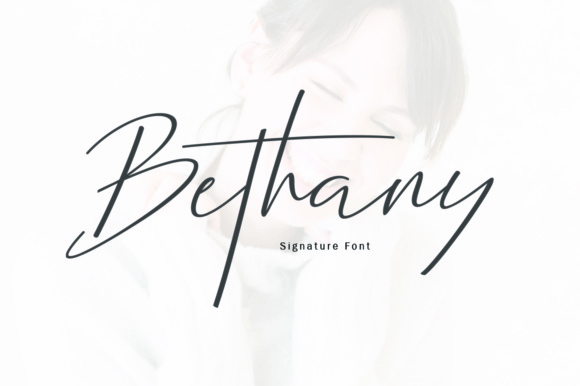
The Bethany Script Font: A Modern Calligraphy Dream
I’ll never forget the design project that led me to discover the Bethany Script Font. I was working on a wedding invitation suite for a client who wanted something elegant, yet modern. I had spent hours browsing through font libraries, but nothing seemed quite right. That was when I stumbled upon the Bethany Script Font, and it was love at first sight! 💕
The Bethany Script Font is a beautiful, modern calligraphy script in a handwriting style. It’s perfect for a wide range of design projects, including branding, wedding invites, magazines, mugs, business cards, quotes, posters, and more!
- 💫 Elegant and modern calligraphy style
- 🎨 Beautiful swashes and ligatures for added flair
- 🌈 Versatile and suitable for a wide range of design projects
- ⚠️ Some users may find the font a bit too ornate for certain projects
- 🤔 Limited availability of certain glyphs and alternates
The Designer Inspiration Behind the Bethany Script Font
The Bethany Script Font was designed with the modern designer in mind. The font’s creator was inspired by the beauty of handwritten calligraphy and the need for elegant, yet modern typography solutions. The result is a font that’s both stylish and versatile, perfect for a wide range of design projects.
Q: What type of projects is the Bethany Script Font best suited for?
A: The Bethany Script Font is perfect for a wide range of design projects, including branding, wedding invites, magazines, mugs, business cards, quotes, posters, and more!
Q: Is the Bethany Script Font easy to read?
A: Yes, the Bethany Script Font is highly legible, even at small sizes. However, it’s always a good idea to test the font in your design project to ensure it works well for your specific needs.